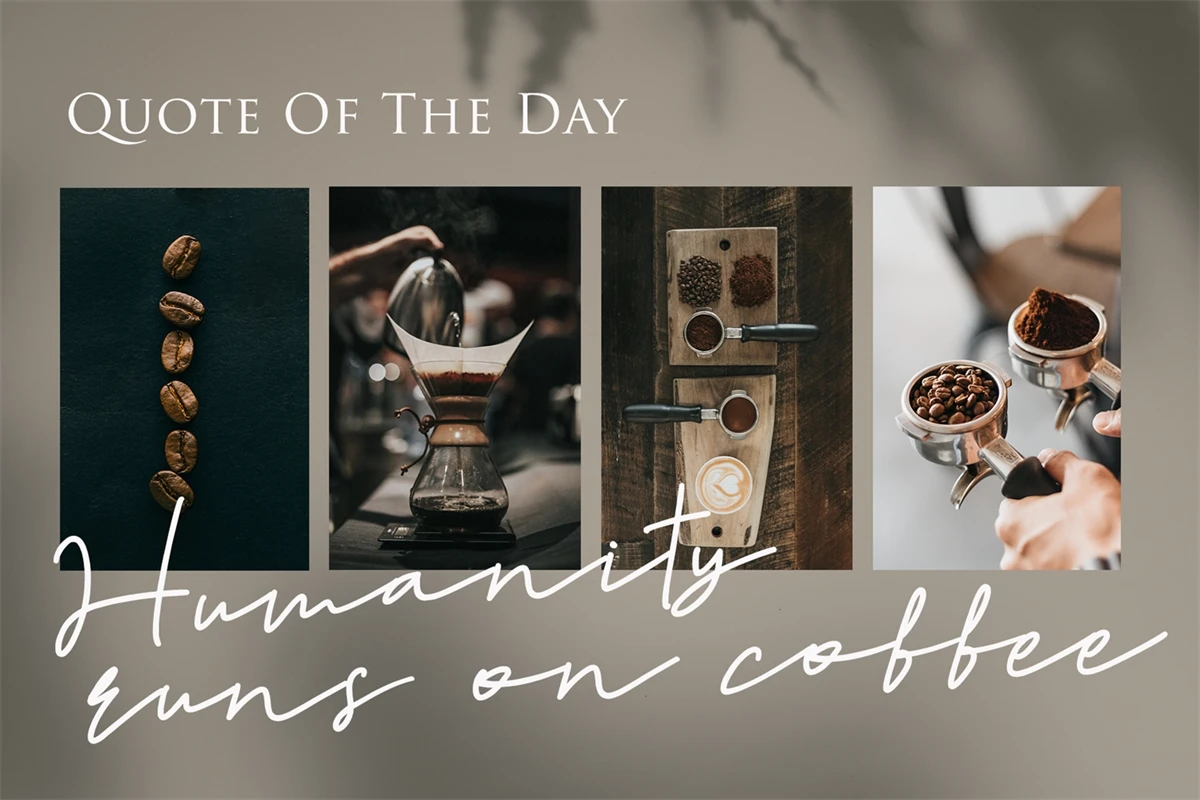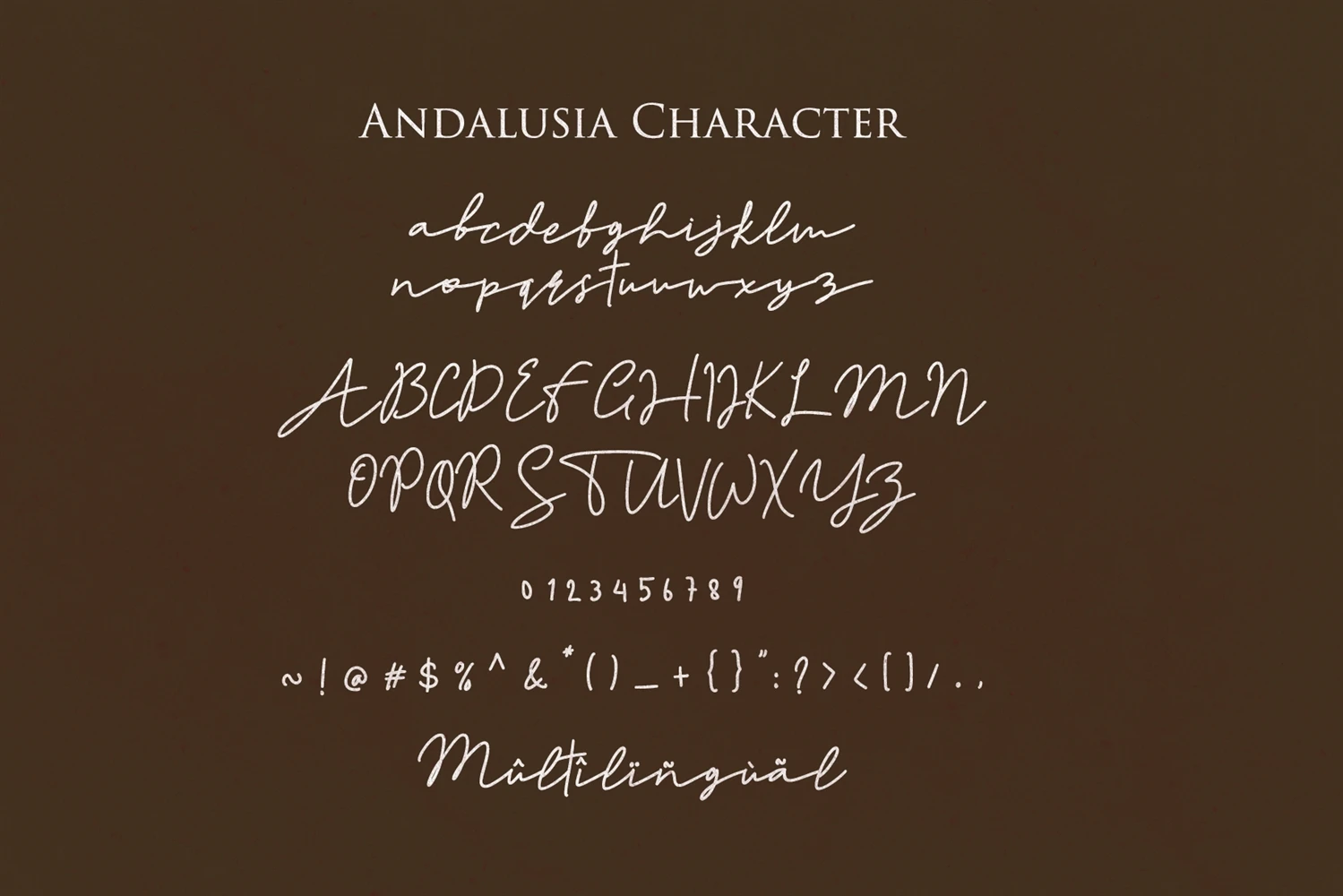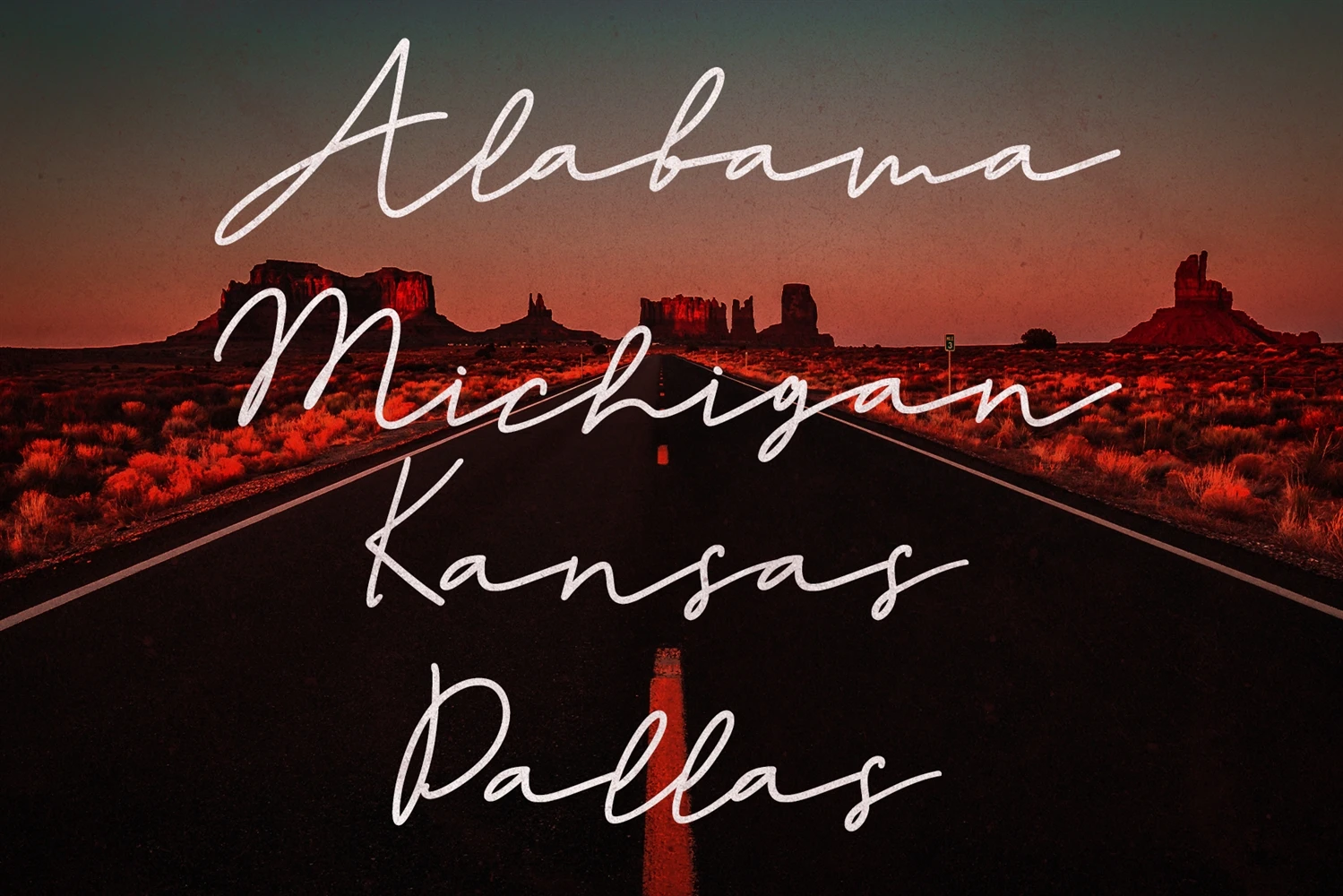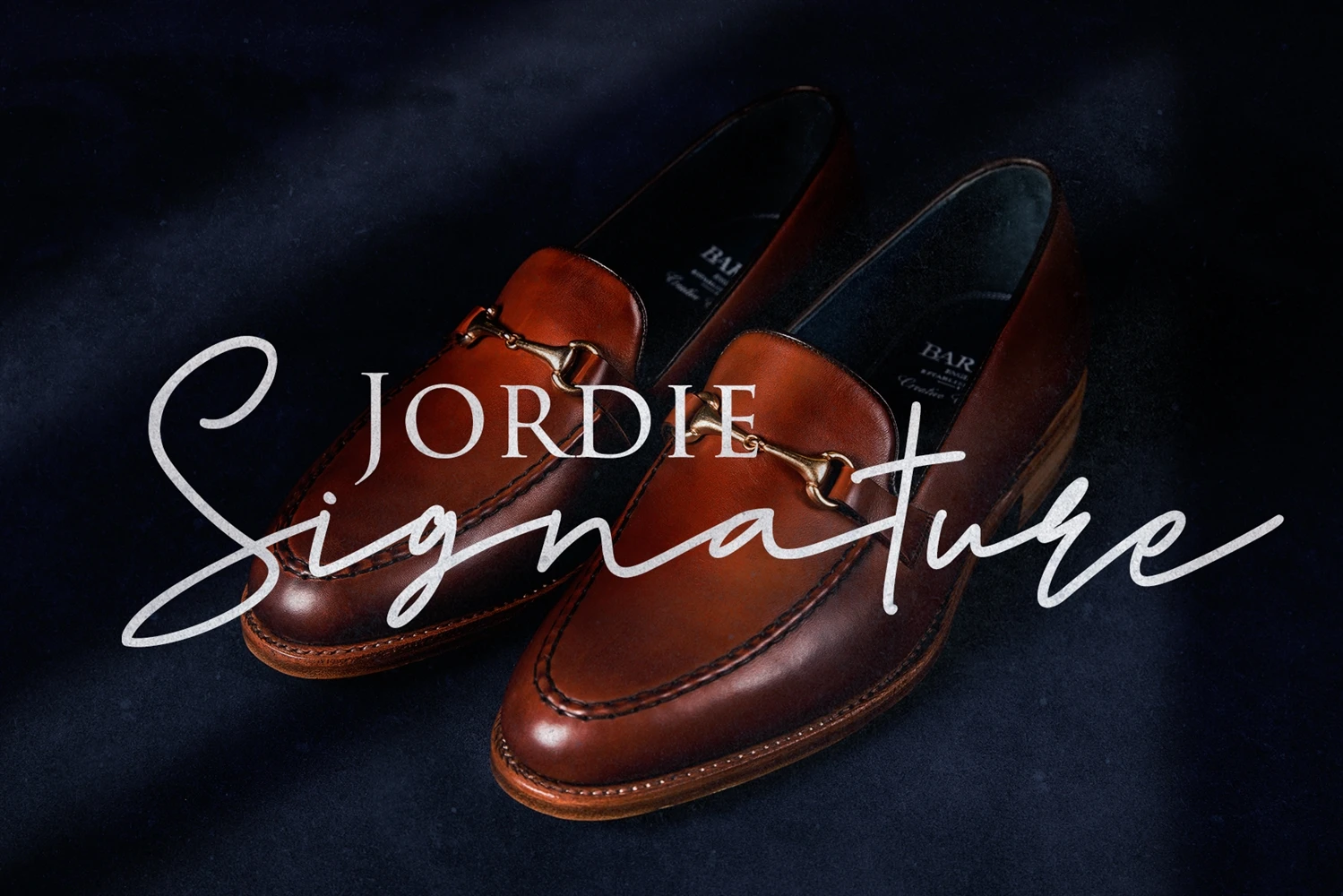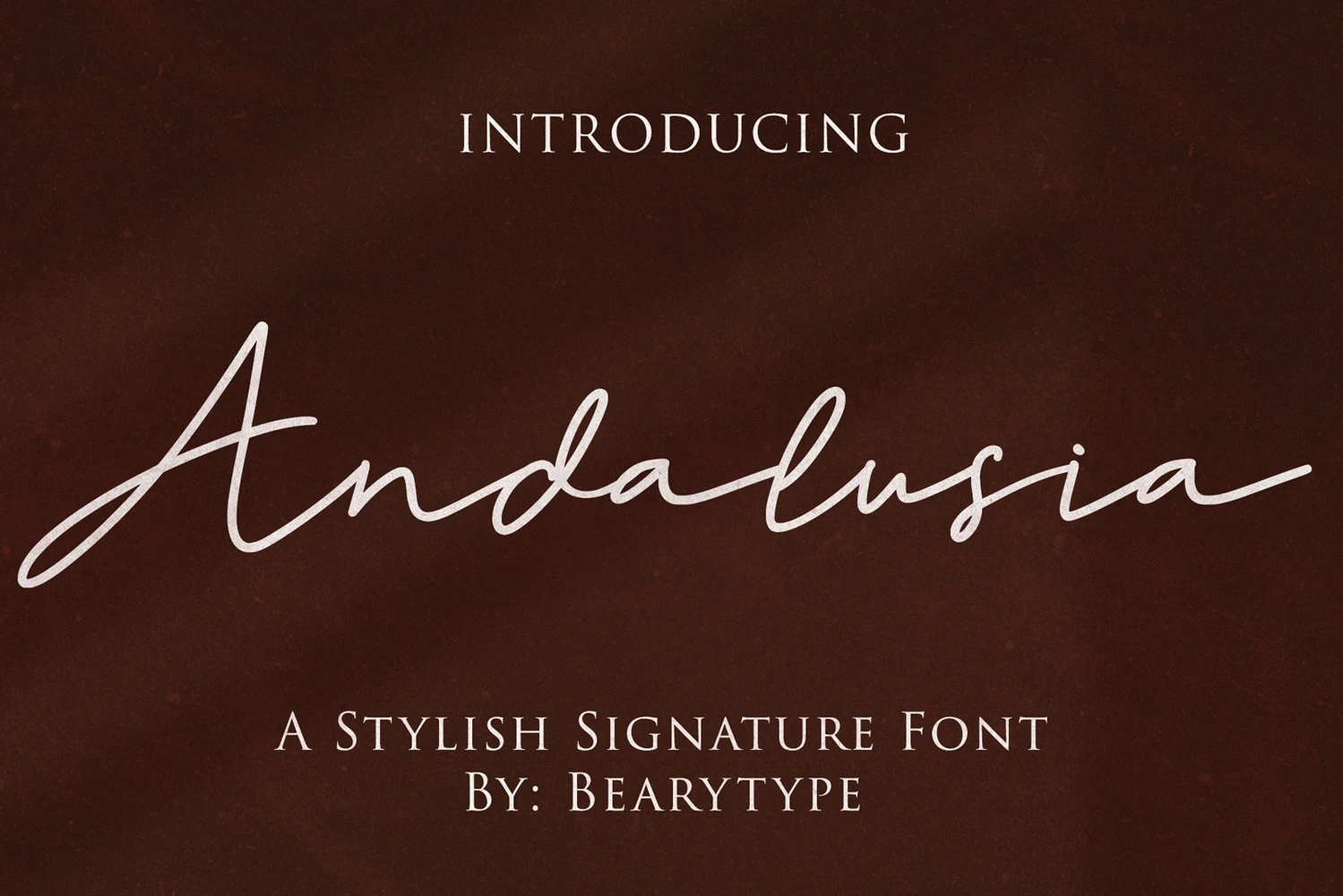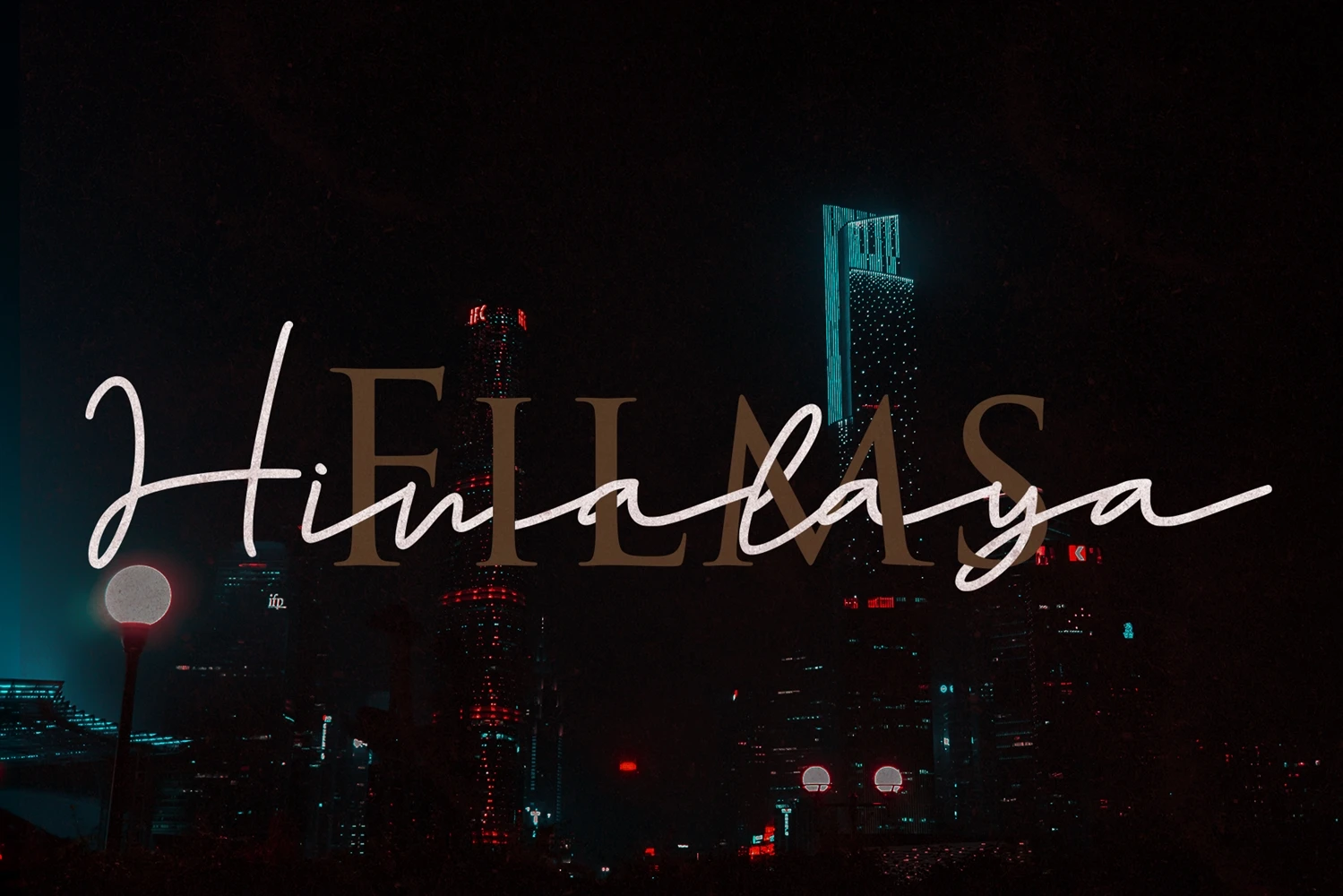
Andalusia is an Signature font.
Expertly designed to make your creation look out of this world, this font will look gorgeous on a variety of ideas.
This font is suitable for Wedding invitation, Love themed design, mugs, christmas cards, poster design etc,
Multilingual Support
Ligature Character